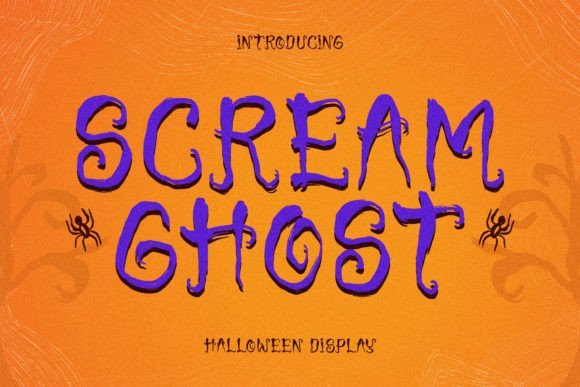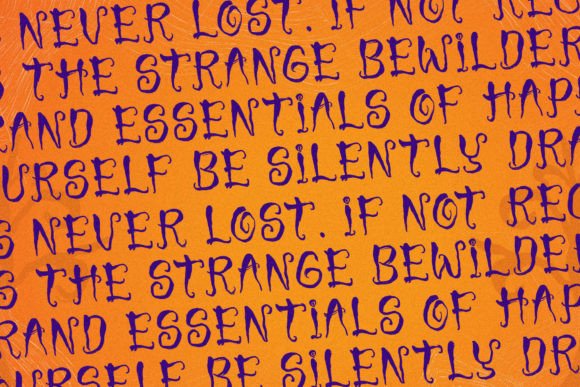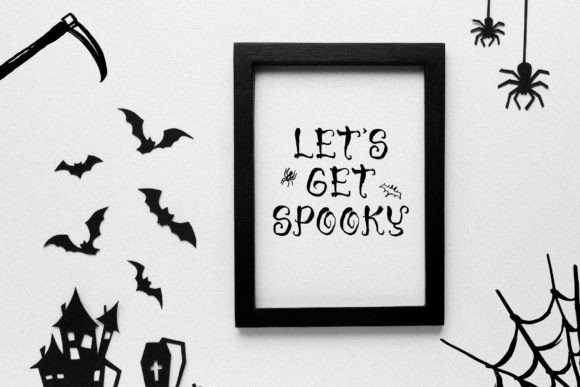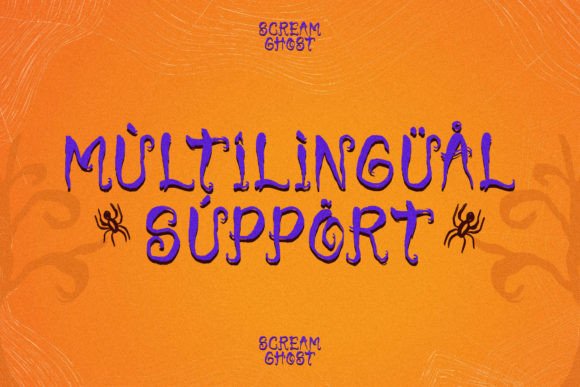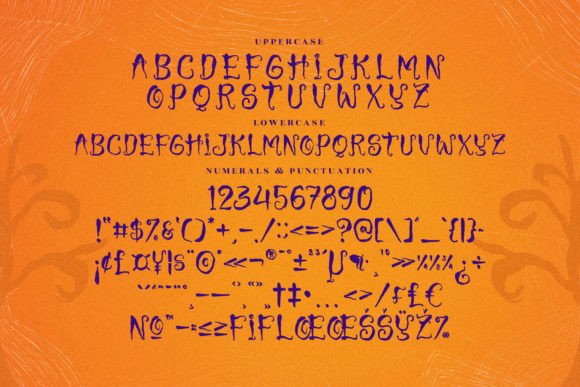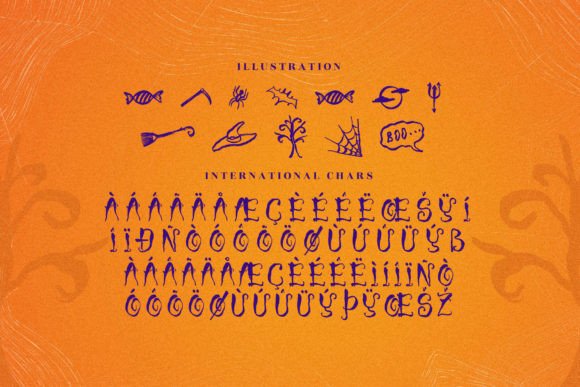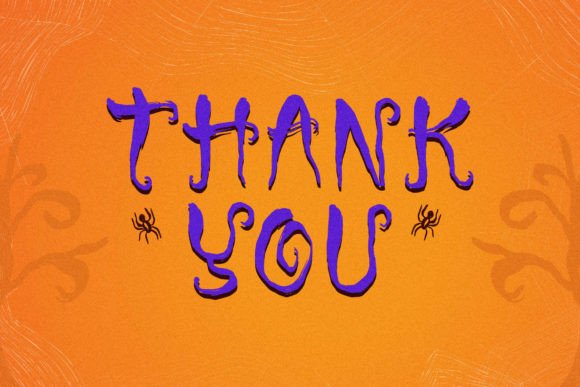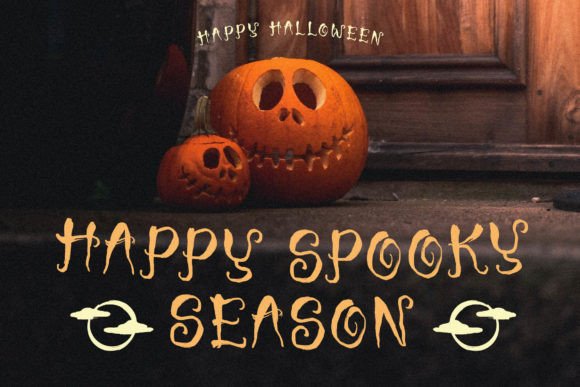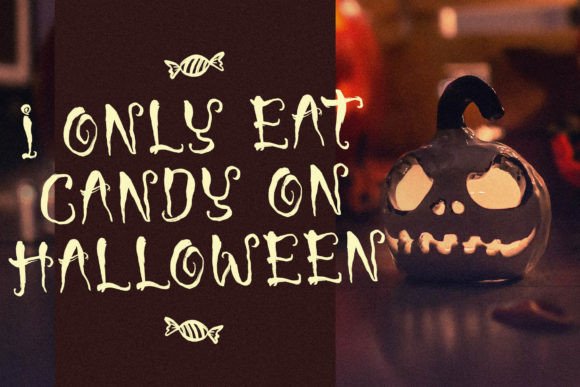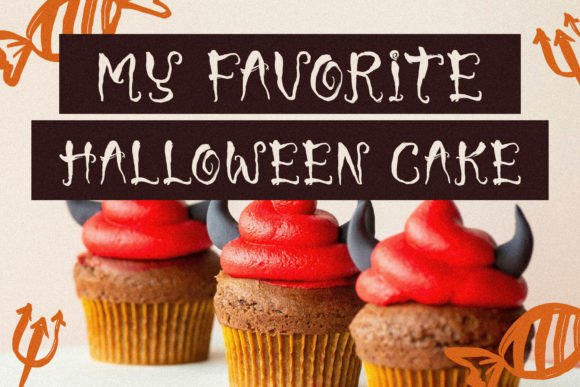
Scream Ghost Font
About Scream Ghost Font
Scream Ghost – Halloween font suitable for any projects such as logos, branding projects, homeware designs, product packaging, mugs, quotes, posters, shopping bags, t-shirts, book covers, name cards, invitation cards, greeting cards, labels, photography, watermark, special events, and all your other lovely projects that need a beautiful script taste.